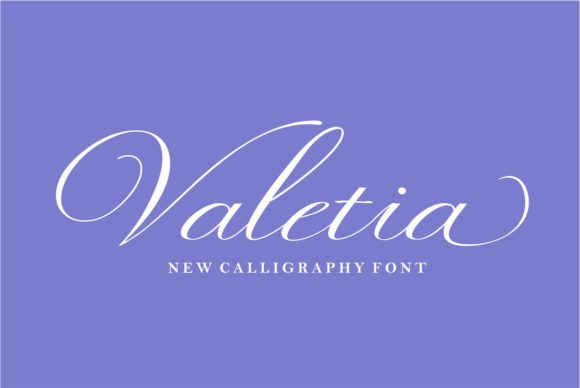
Unleash the captivating eloquence of your creative expressions with Valetia Font, a modern calligraphy script that dances with grace and elegance. Each letter, meticulously crafted by Rama Type, embodies the essence of romance and artistry, adding a touch of enchantment to every project you undertake.
Whether you're a seasoned designer seeking to elevate your typography or a budding artist yearning for a font that mirrors the beauty of your imagination, Valetia Font is your muse. Its charming swashes, reminiscent of flowing watercolors, bring a sense of fluidity and movement to your designs, transforming ordinary words into captivating masterpieces.
Imagine your wedding invitations adorned with Valetia's delicate strokes, carrying the promise of love and commitment in every curve. Picture your social media posts capturing the attention of your audience, their eyes drawn to the allure of Valetia's intricate details. Let your blog posts and online content radiate with personality and sophistication, as Valetia's graceful characters dance across the screen, captivating readers with their timeless elegance.
Valetia Font is not merely a collection of letters; it's an expression of your individuality, a reflection of your artistic vision. Its versatility knows no bounds, adapting effortlessly to a myriad of creative endeavors. From heartfelt love letters that whisper sweet nothings to bold branding that demands attention, Valetia Font transforms your words into a visual symphony, stirring emotions and leaving a lasting impression.
Step into the realm of creativity, where words take form and dreams come to life. Let Valetia Font guide your imagination, allowing your artistic spirit to soar. Embrace the allure of its romantic charm and watch as your designs blossom into works of art.